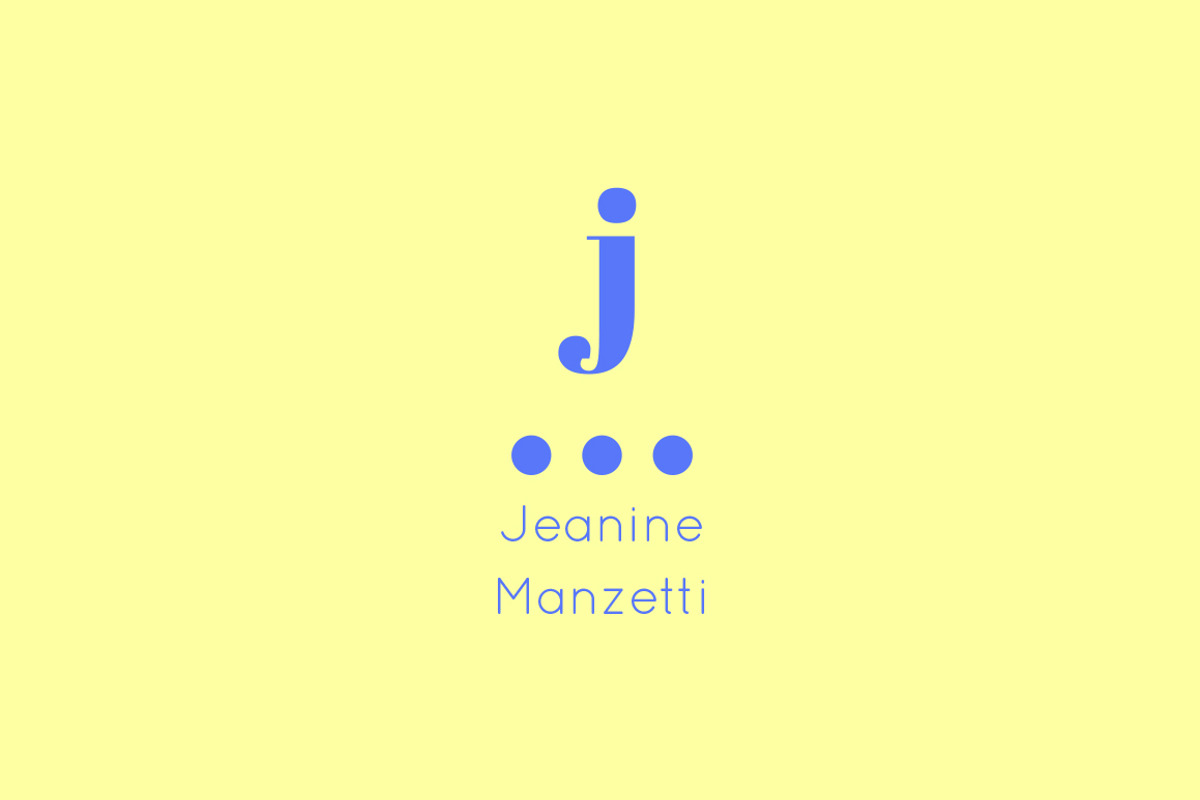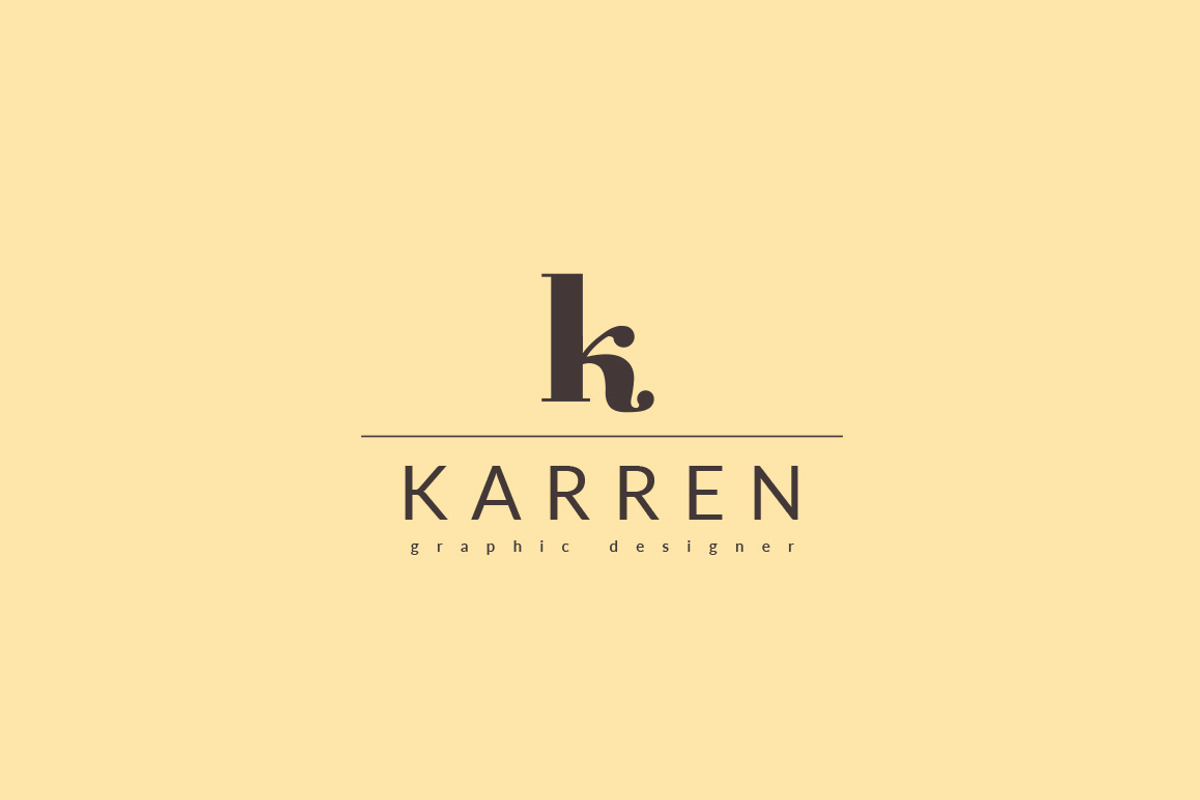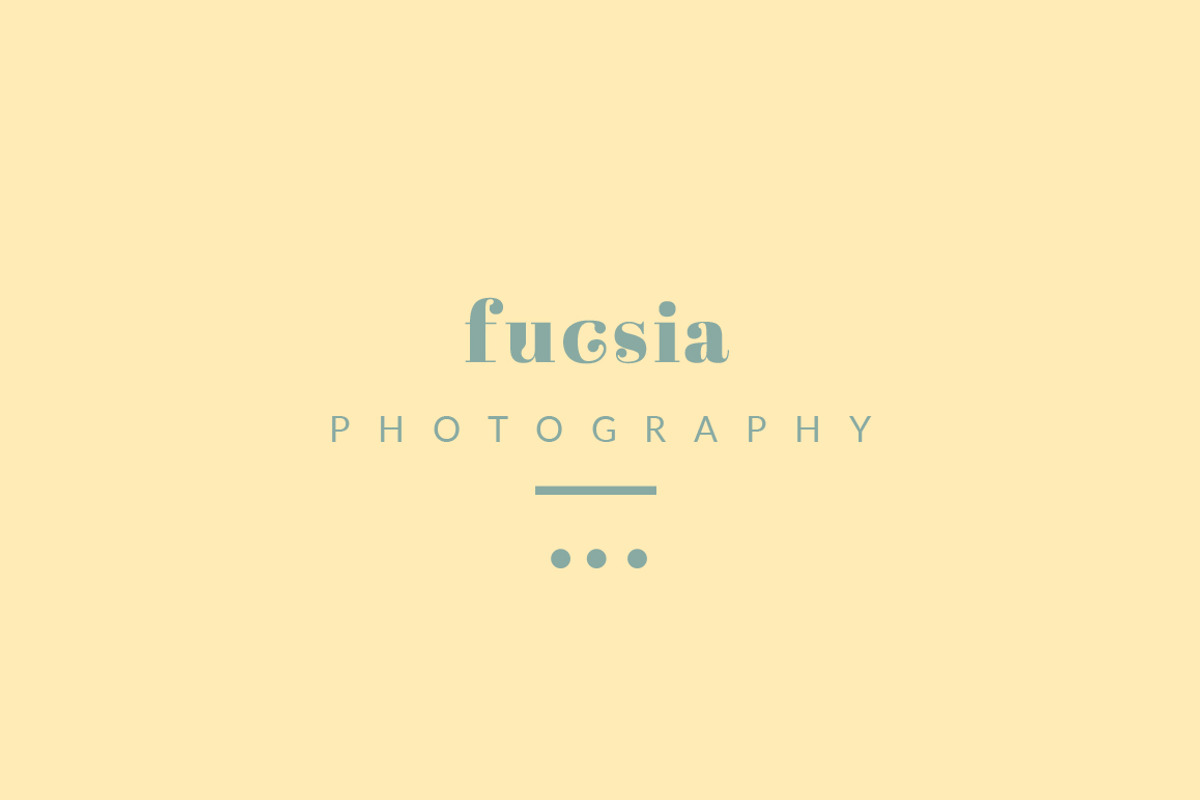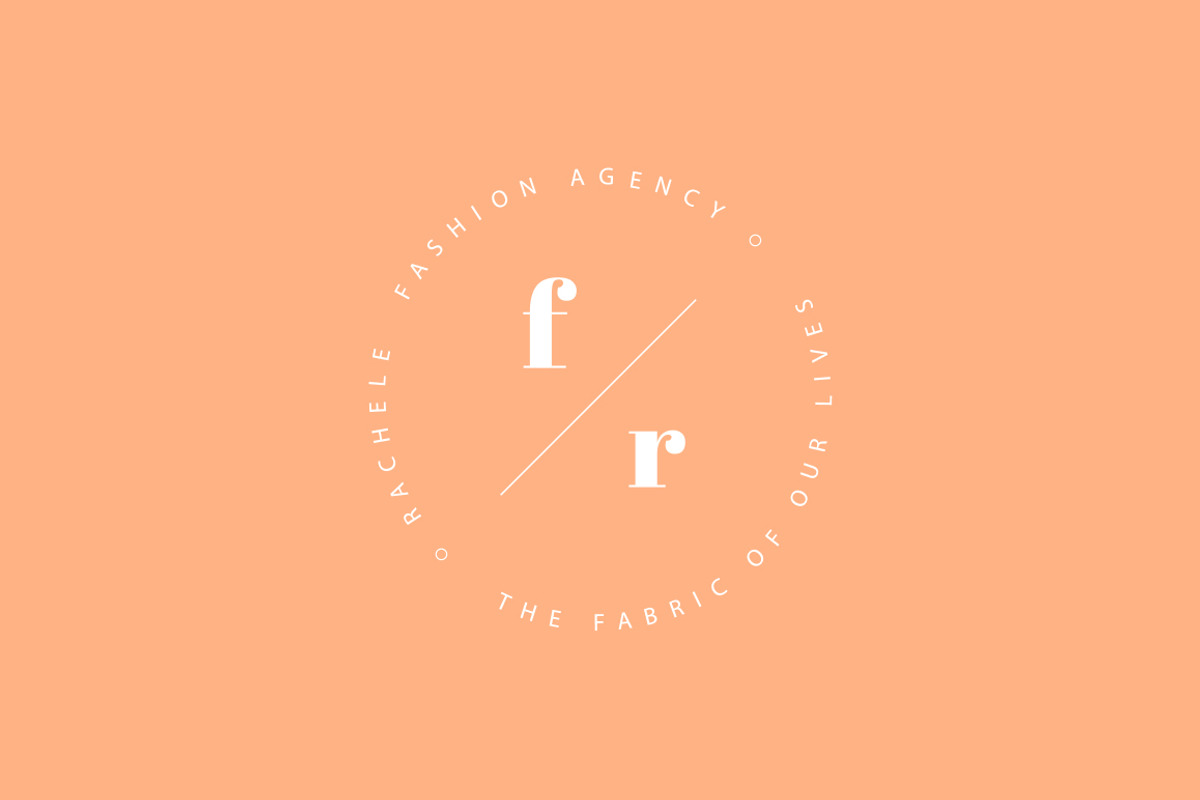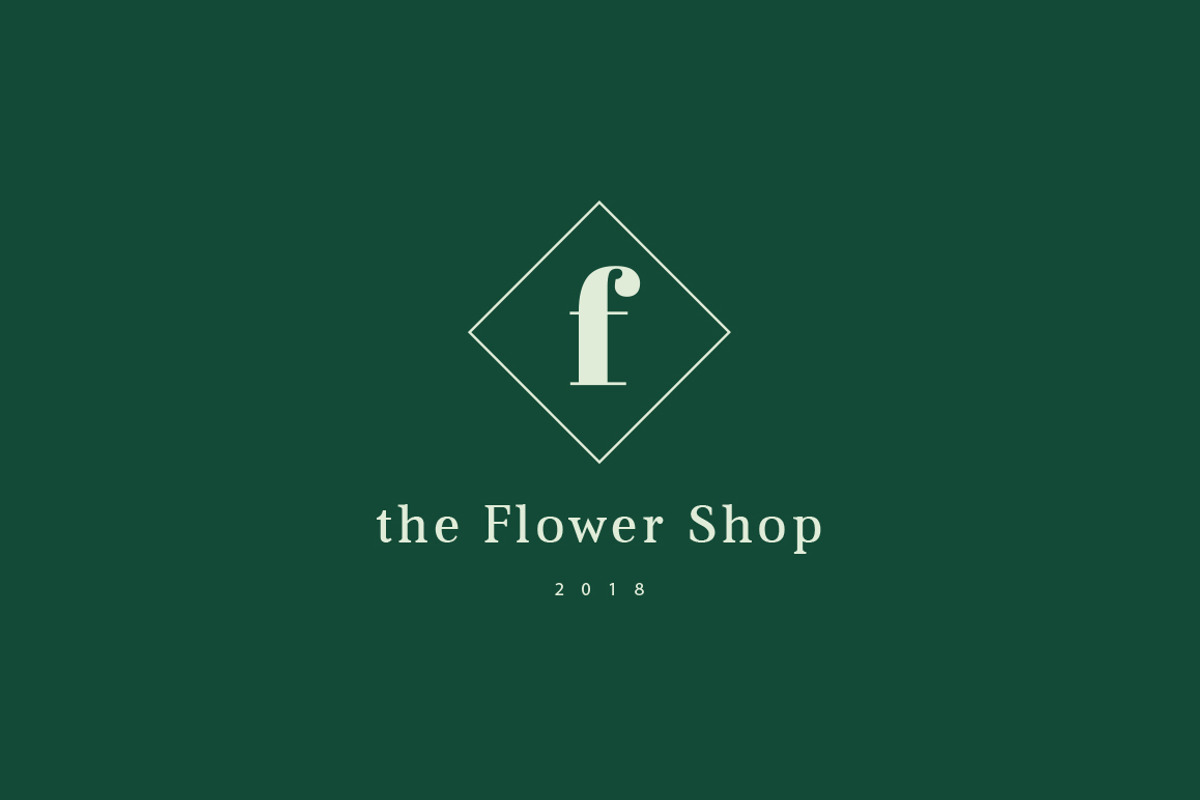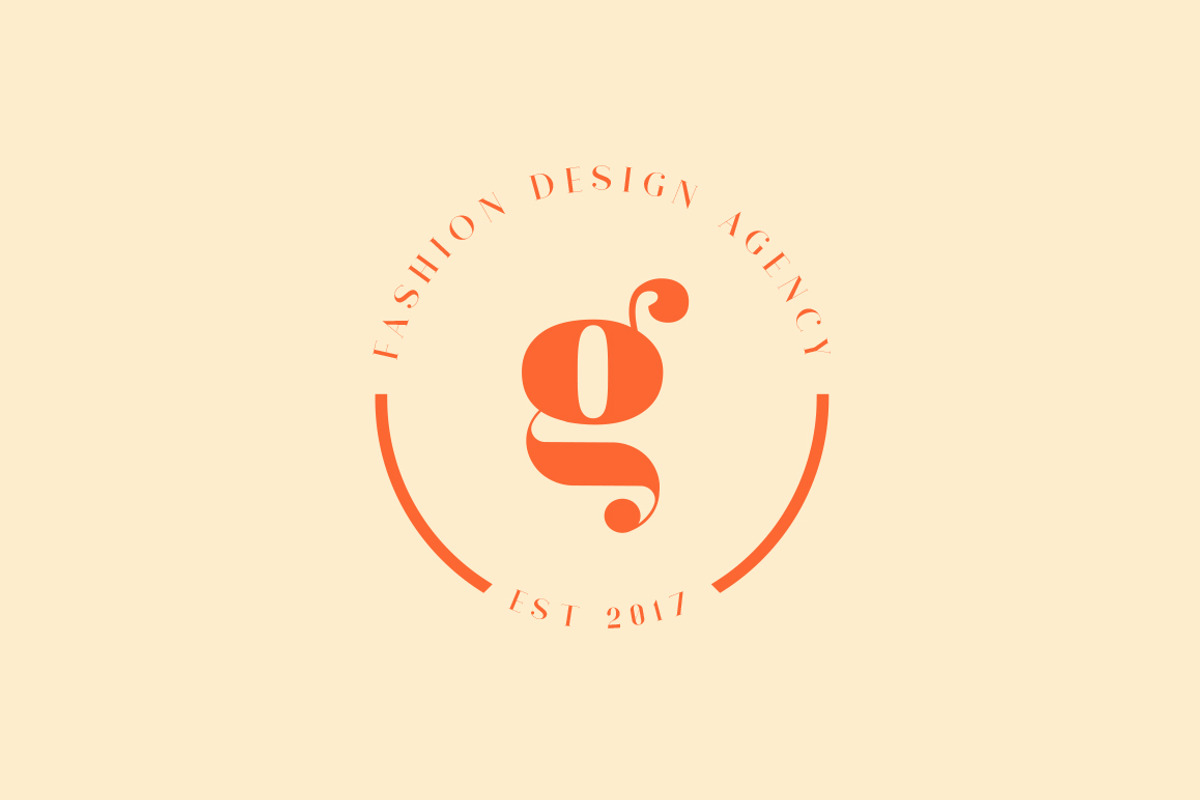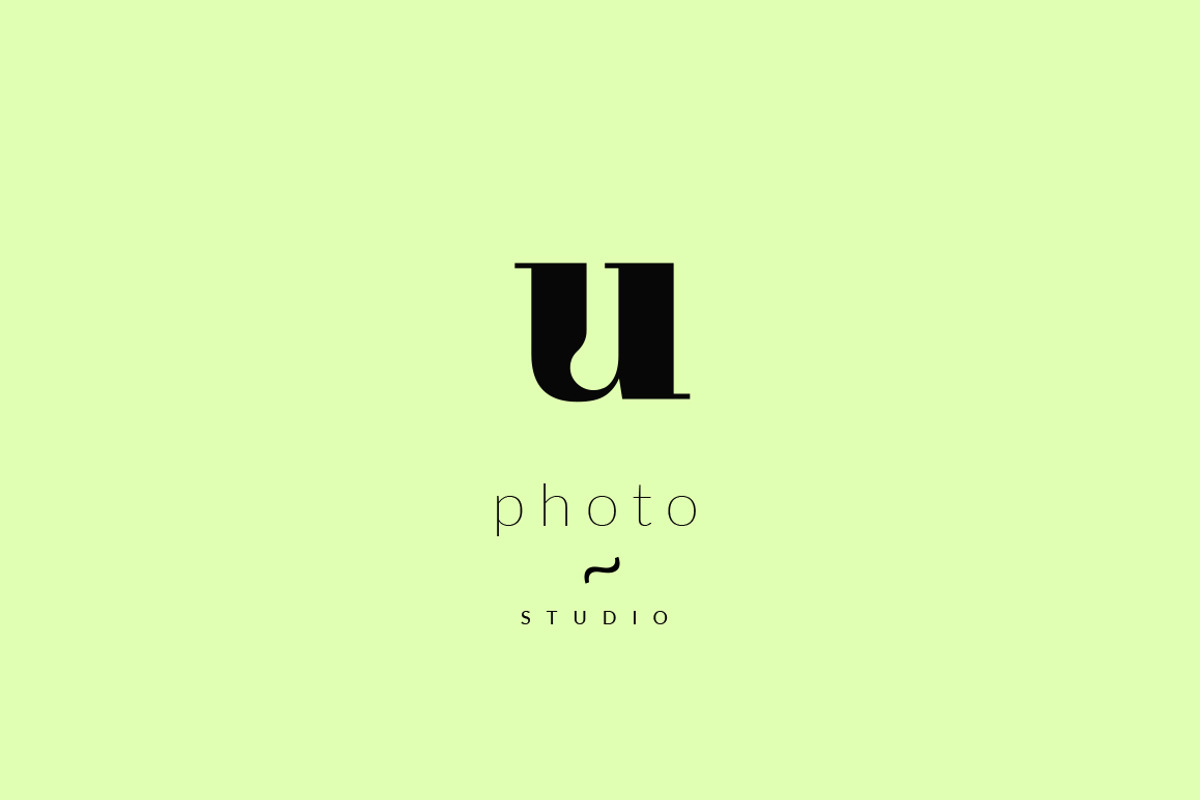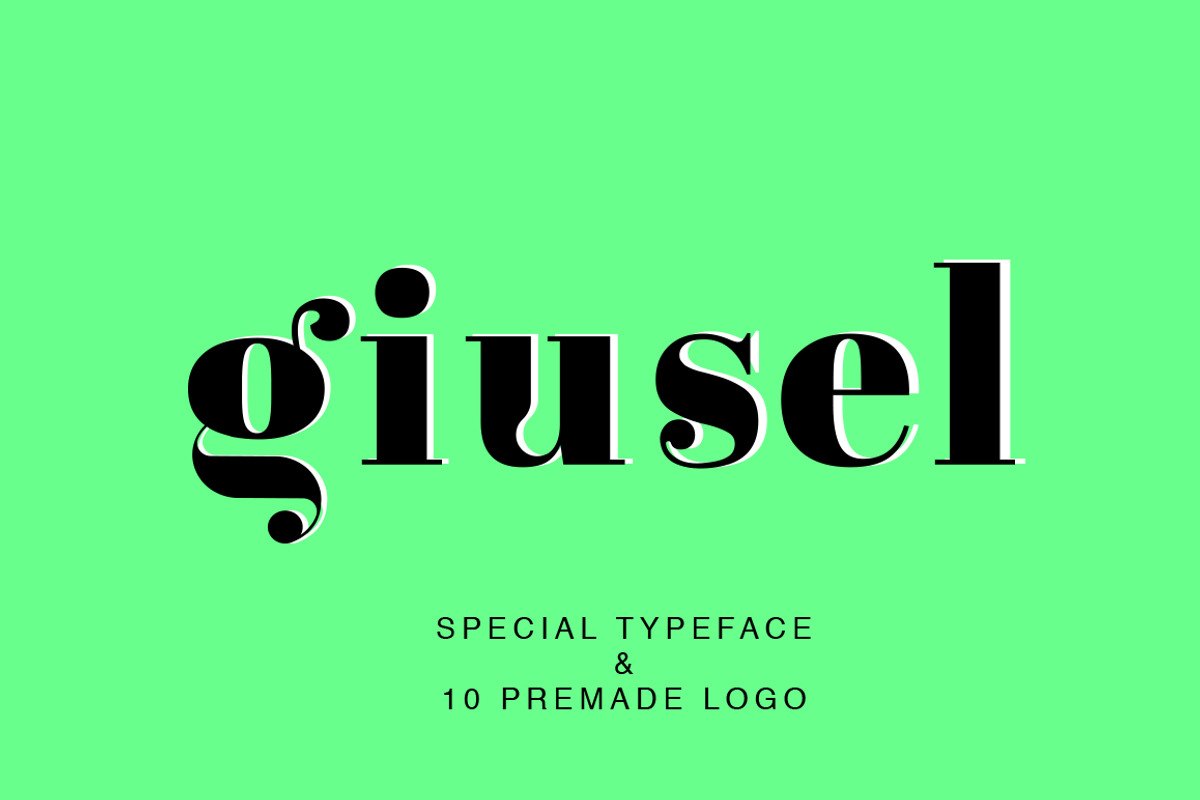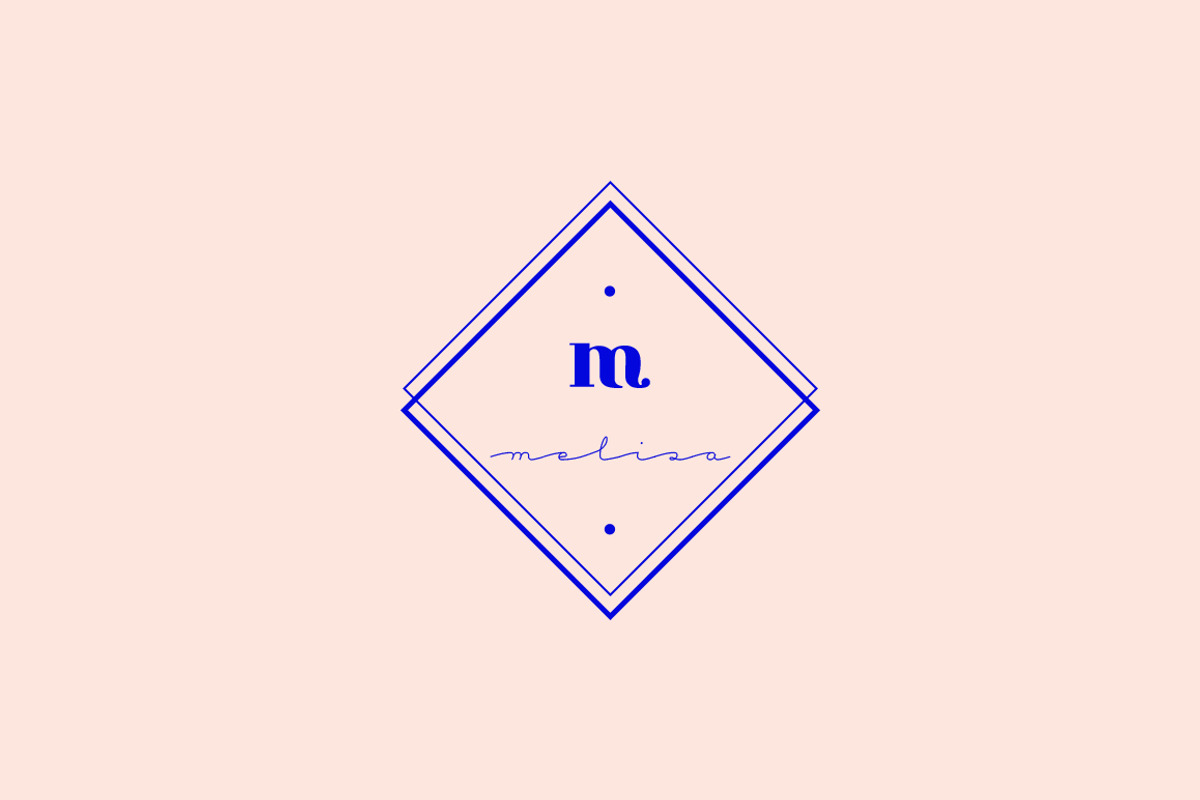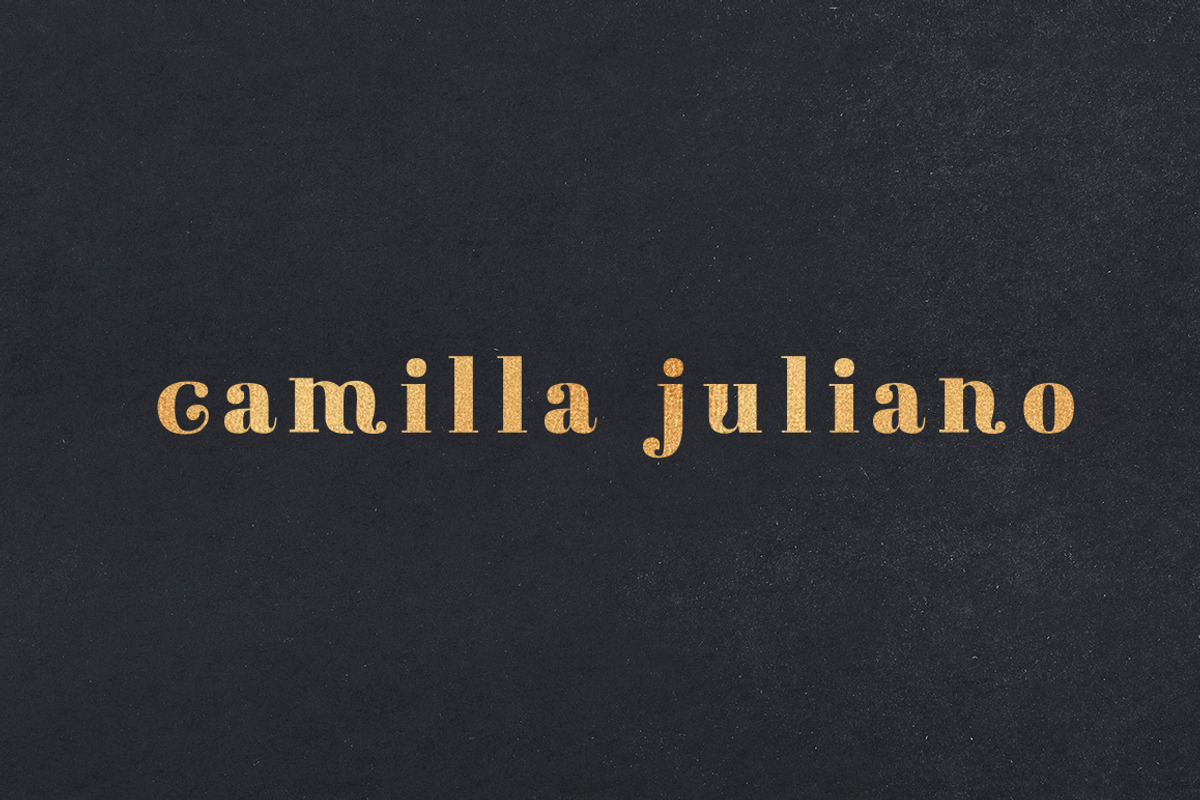
GIUSEL FASHIONABLE FONT & 10 LOGO
Whatever I create I want to pass through something to the person who sees it. Something that can help you to create further, be like the tool in your process of making.
I thought of GIUSEL FASHIONABLE FONT first of all as something different, with small diversions just to make a statement. Even with a letter, you can pass something. I've designed it to give a fashionable design air, suitable for any kind of project. With simple little twists on each letter, I wanted to pass through it femininity and diversity. Is a simple but special font that can completely change the tone of your creativity.
Besides the font, you will find 10 logos templates ready for you! The premade logos I've created are to show the font's efficiency, but also to help you get a 2 in 1 start.